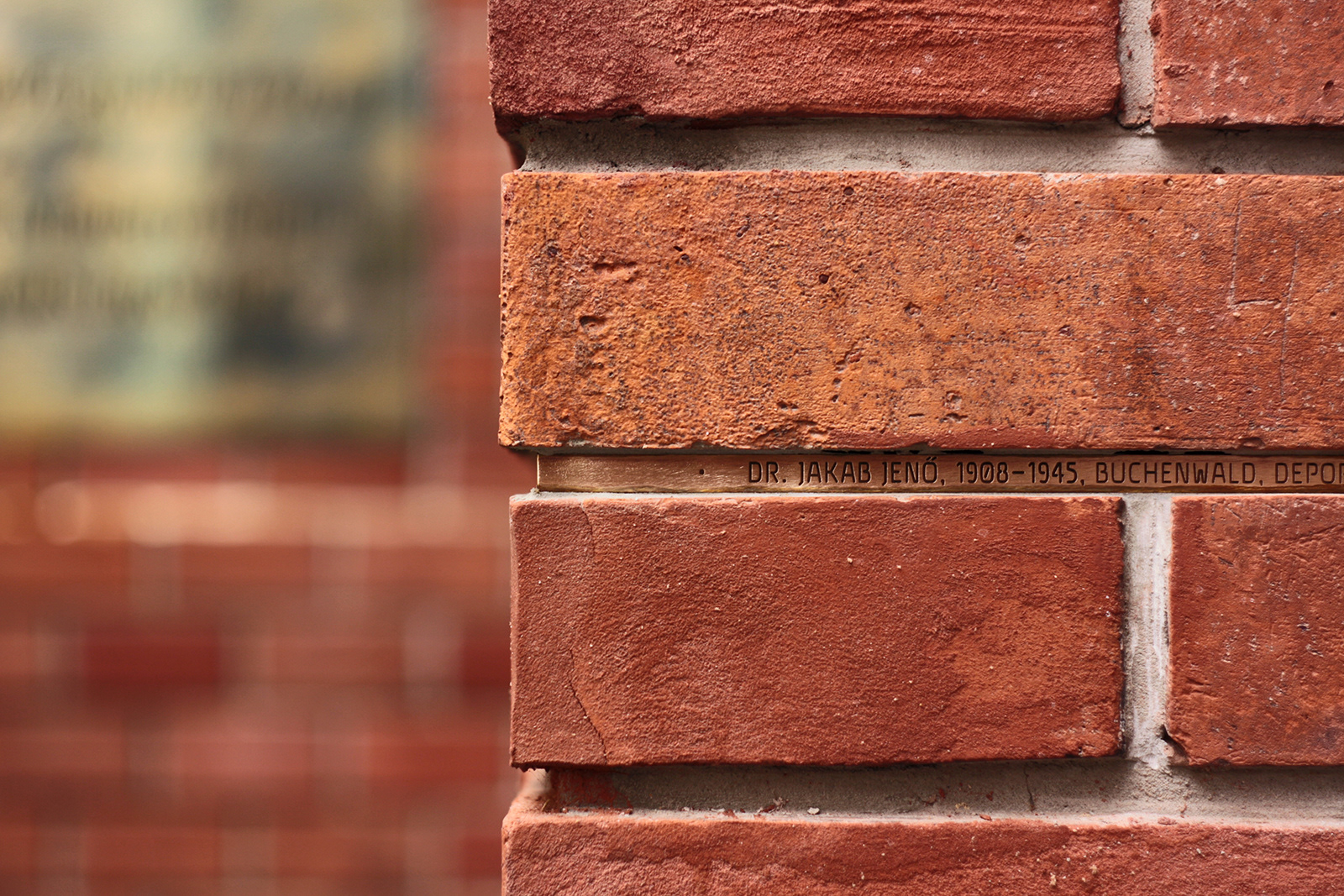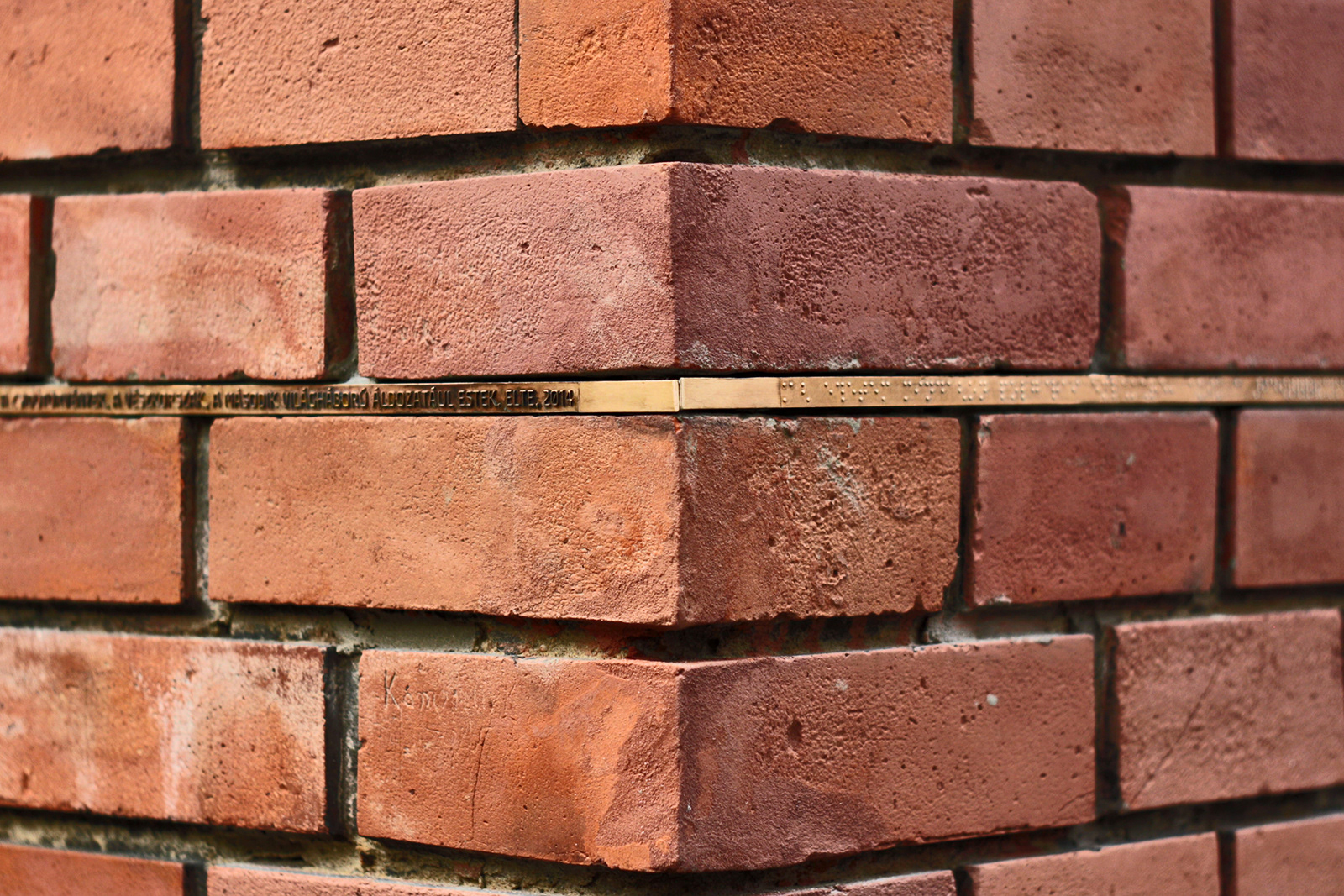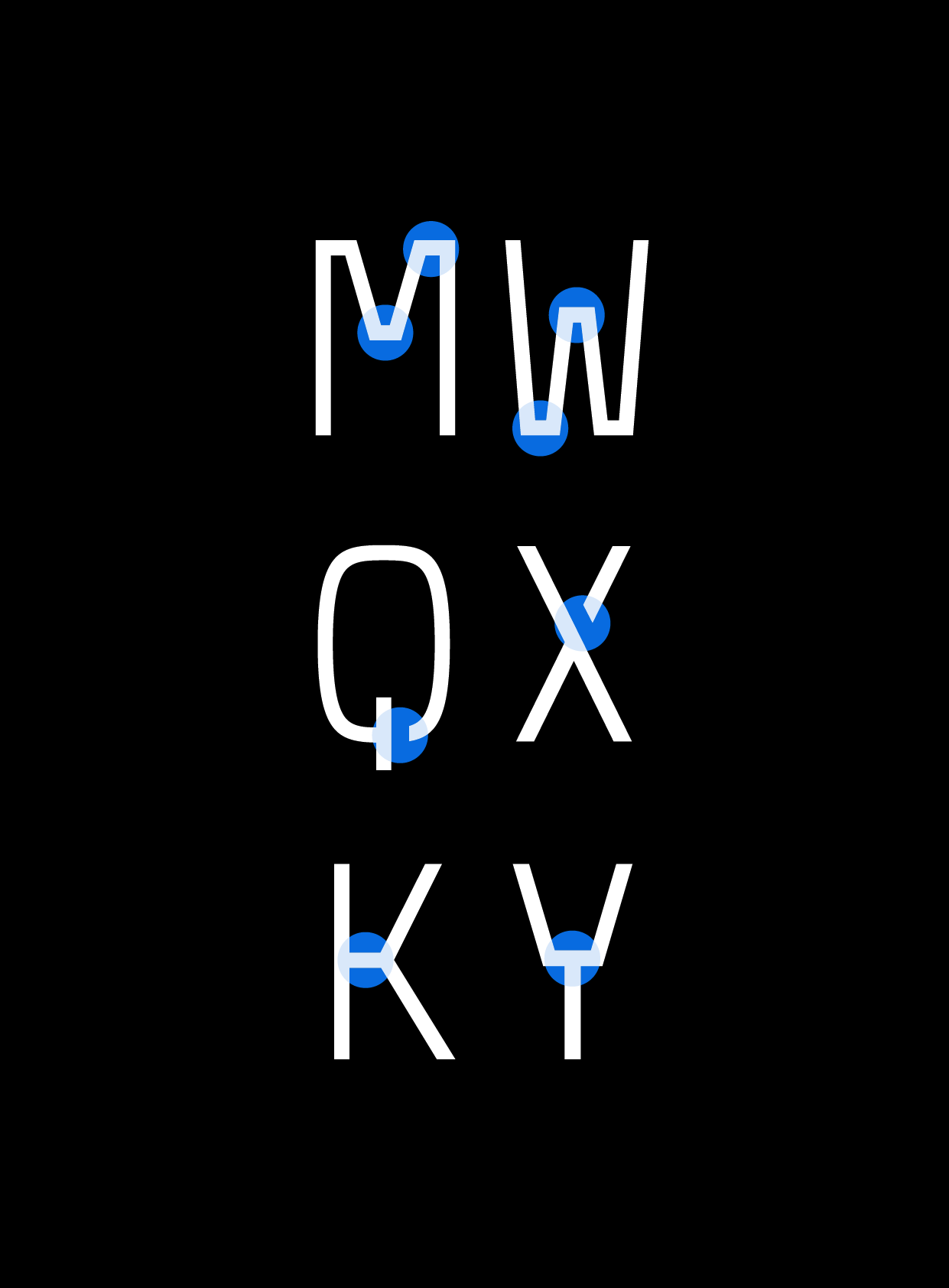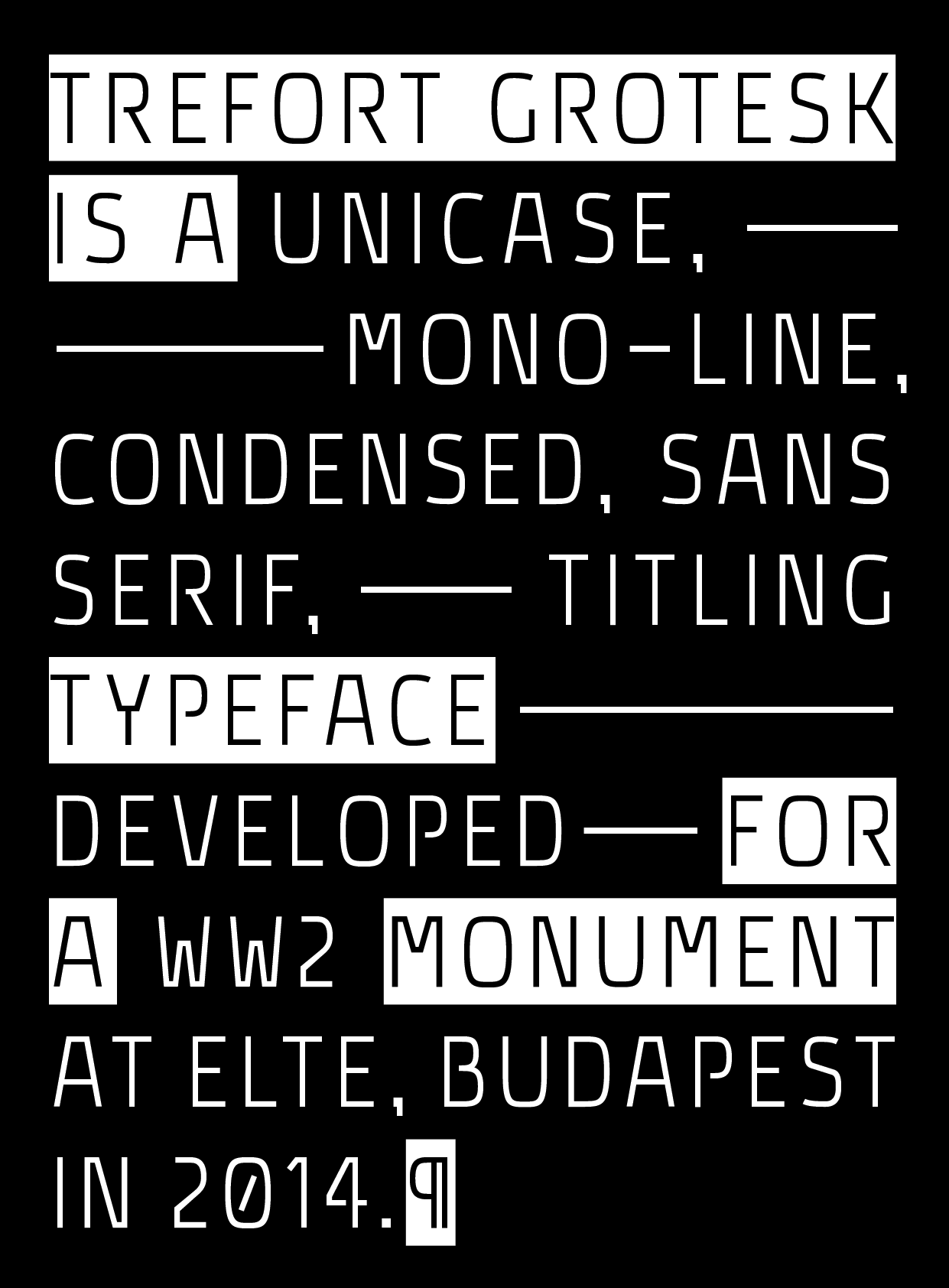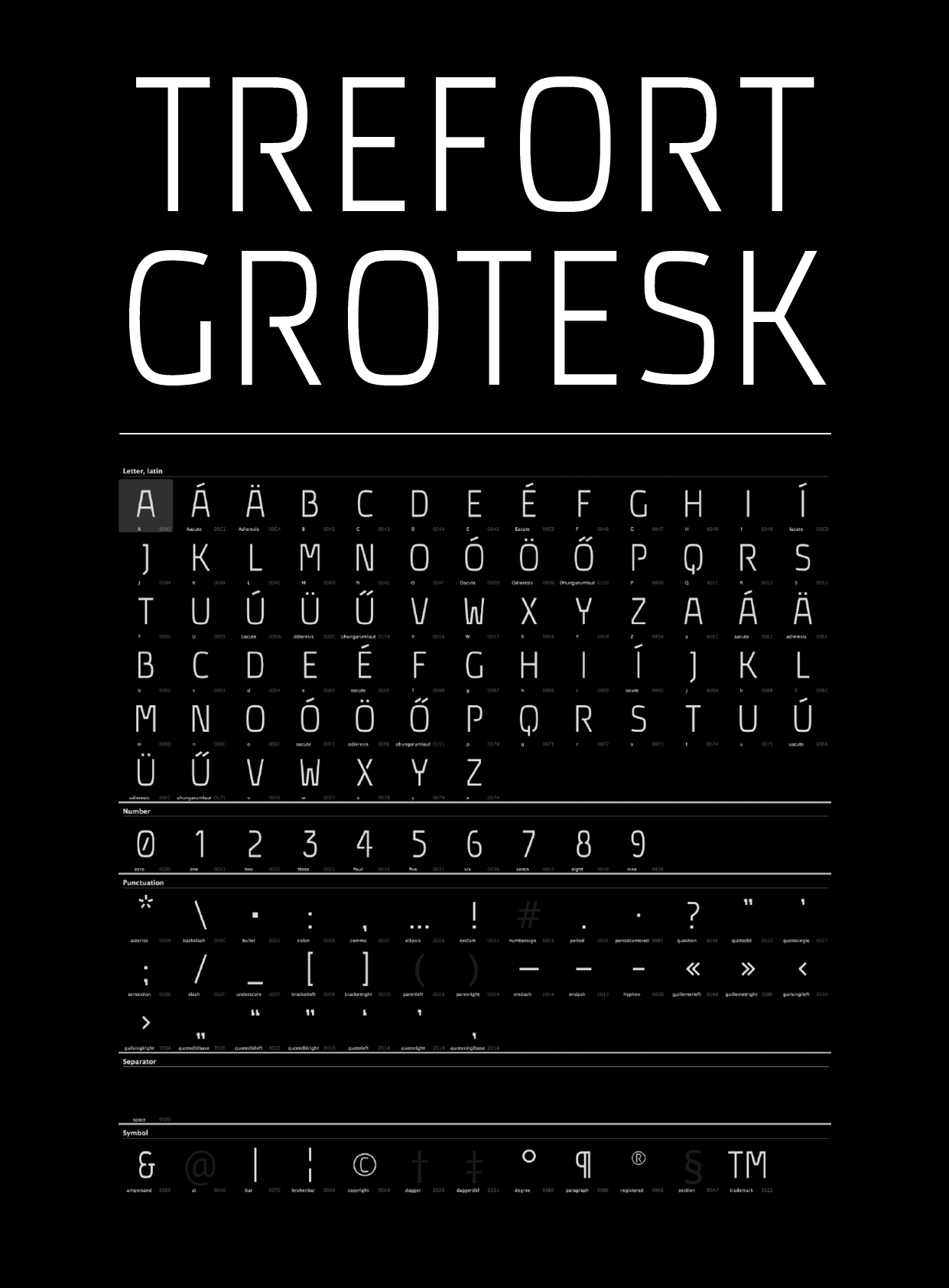
PROJECT DESCRIPTION I was commissioned to design a custom typeface for a World War II monument at Eötvös Loránd University commemorating the university's students and professors who fell victim to the war. The names of the victims, along with their most important biographical data, were CNC-milled into bronze rods built into the facades of the school's buildings at its Trefort Garden campus. The stripe is 1 cm in height and 200 meters in length, featuring the names of 198 victims in 9454 characters. 180 kg of bronze have been used. A number of formal limitations imposed upon the design process by the technique of milling strongly determined the typeface's character. As a result, Trefort Grotesk is a unicase, mono-line, condensed sans serif featuring open counters, some stenciled glyphs, and as few stroke joints as possible. Apart from type design I was responsible for designing various print collateral as well as the website of the project. ARCHITECTS Ildikó Bujdosó, János Roth, Levente Szabó, Nóra Szigeti SCULPTURE & METAL WORKS Farkas Albert, Tamás Albert, Kristóf Albert CNC XFER WEB DEVELOPMENT Circumstances PROJECT MANAGEMENT Péter György TYPE DESIGN, TYPESETTING, GRAPHIC & WEB DESIGN Ákos Polgárdi